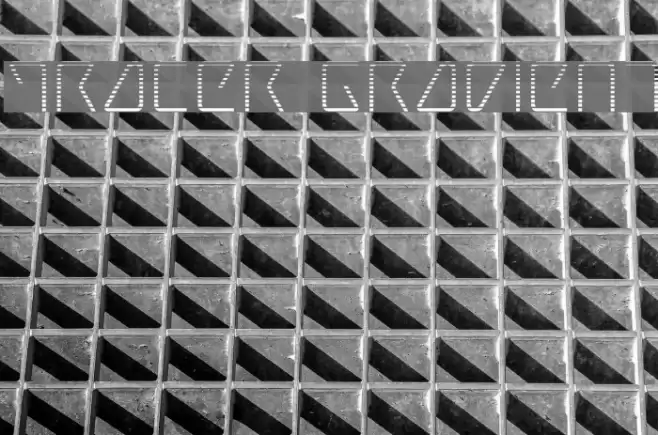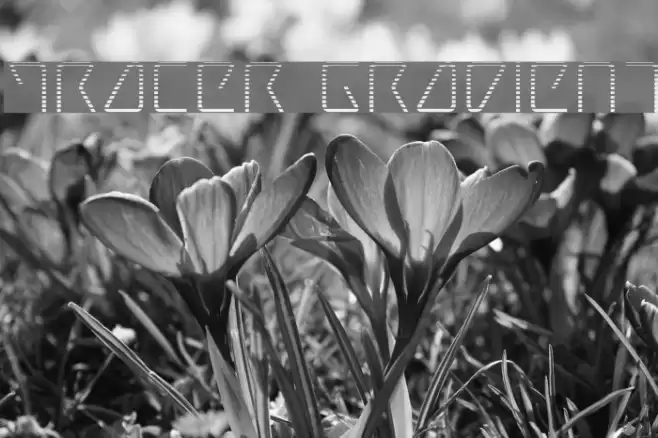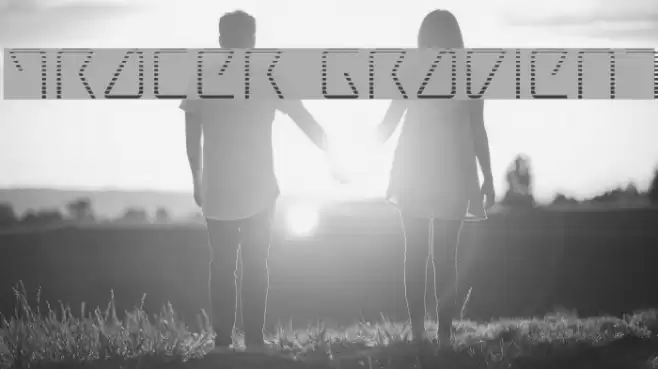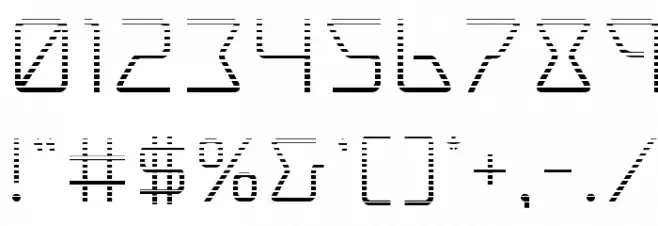
Tracer Gradient Font
Tracer Gradient Description
This font features a futuristic and digital aesthetic, characterized by its segmented and dotted line style. Each character is constructed with a series of horizontal lines that create a sense of movement and modernity. The uppercase and lowercase letters maintain a consistent geometric form, while the numbers and special characters follow the same design principle, ensuring uniformity across all glyphs. The font's unique appearance makes it stand out, providing a distinct visual impact that is both contemporary and innovative.
A futuristic, segmented line font with a digital aesthetic from Sci-fi fonts.
- Proposed Projects: Ideal for technology branding, digital art projects, sci-fi themed designs, and modern advertising.